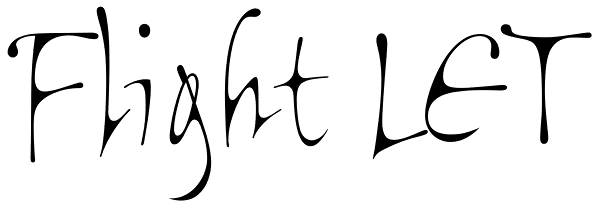
Flight
Experimentation with different design tools is leading British calligrapher Tim Donaldson's forte. Flight, named for its free-flowing lines that convey a freedom of movement like birds on the wing, was originally rendered in pencil using a quick...